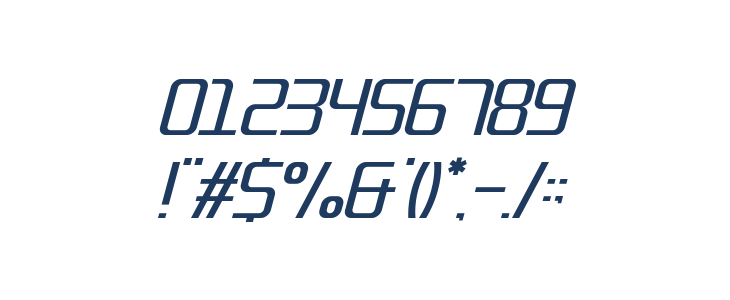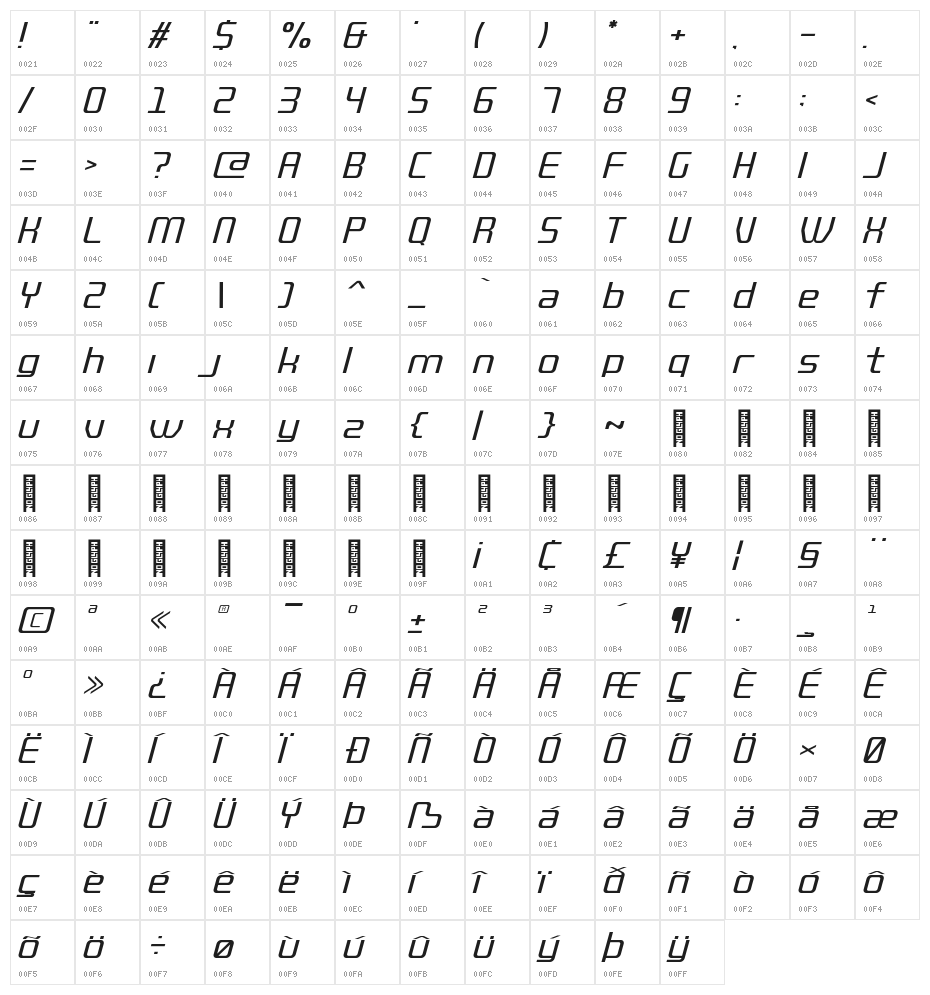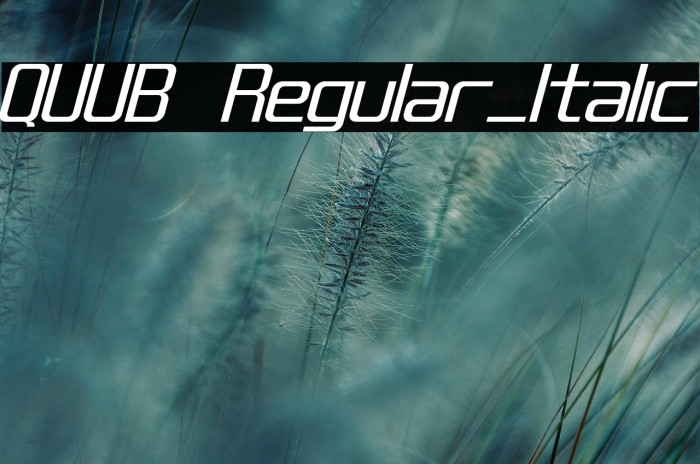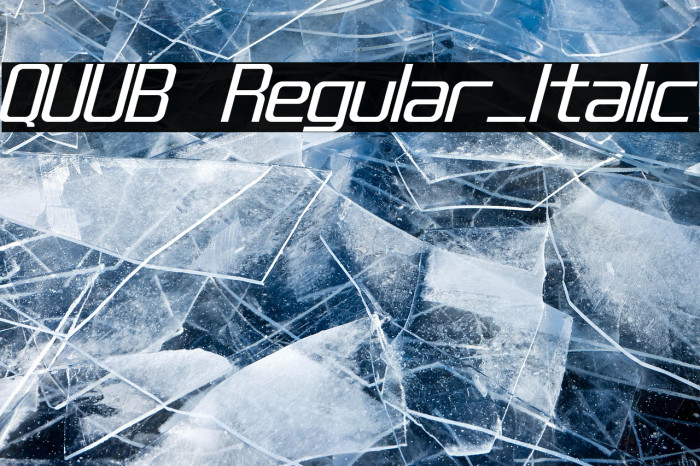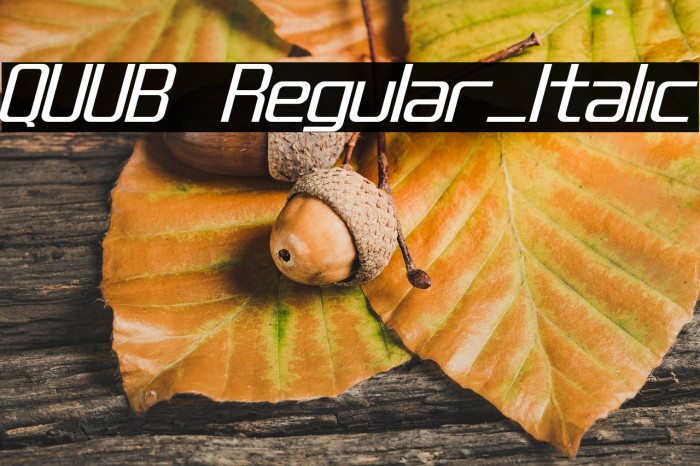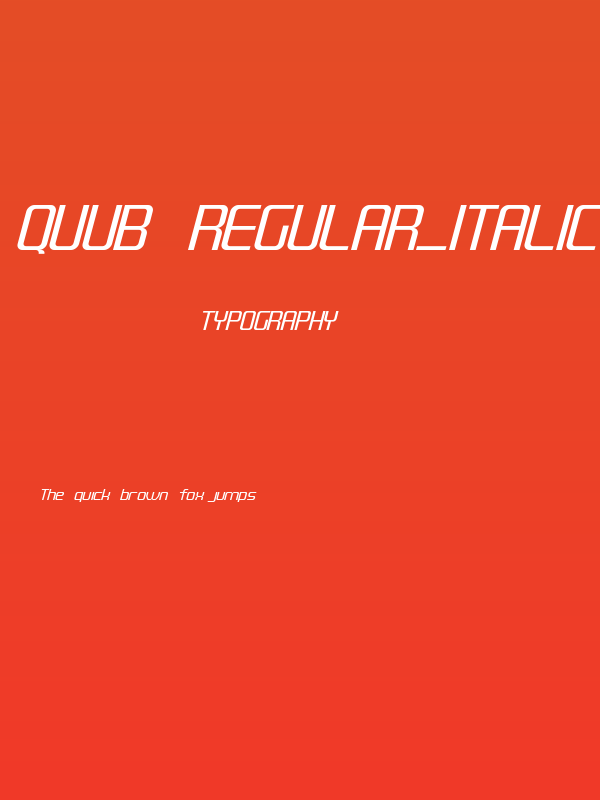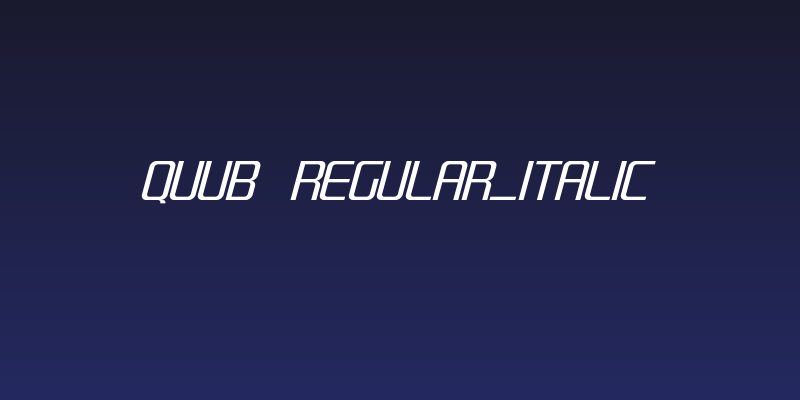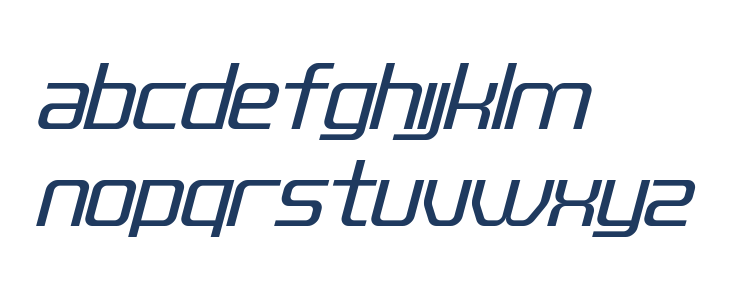
QUUB Regular_Italic Font
QUUB Regular_Italic Description
This font features a sleek, modern design with a distinctly futuristic feel. The characters are slightly italicized, giving a sense of motion and dynamism. The strokes are consistent in width, contributing to a clean and streamlined appearance. The uppercase and lowercase letters maintain a uniform height, enhancing readability. The numerals and special characters are designed to match the overall aesthetic, ensuring a cohesive look across all text elements. This font is ideal for projects that require a contemporary and stylish touch.
| Use Case | Headlines, Logos, Digital Interfaces |
| Proposed Projects | Ideal for technology branding, modern advertising, and digital interfaces. |